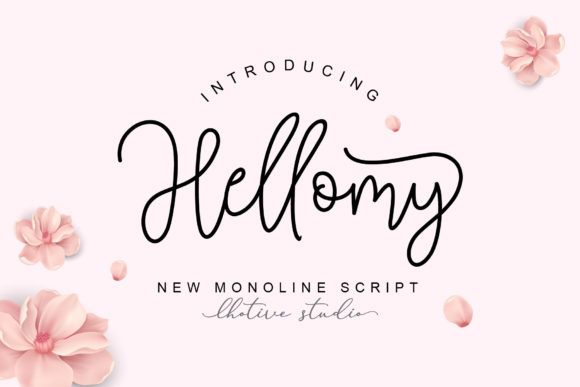
Journey into a world of elegant aesthetics with Hellomy Font, the exquisite script font designed to captivate your creative spirit. Created by the talented artist lhotive, this monoline masterpiece is a fusion of timeless beauty and modern flair. Hellomy Font beckons you to express your individuality with its meticulously crafted glyphs and a captivating collection of swashes that add a touch of enchantment to your designs.
Prepare to be mesmerized as you explore the depths of Hellomy's character set, where each letter dances across the screen with grace and poise. Its smooth curves and delicate strokes evoke a sense of sophistication, inviting you to craft designs that radiate elegance and charm. Unleash your creativity and let Hellomy Font guide you towards design excellence.
Immerse yourself in a world of endless possibilities with Hellomy Font. Its versatility knows no bounds, effortlessly adapting to a myriad of design projects. Whether you're crafting wedding invitations that exude romance, creating marketing materials that demand attention, or designing social media posts that captivate your audience, Hellomy Font is your steadfast companion. Its timeless appeal transcends trends, ensuring that your designs remain captivating and relevant for years to come.
With Hellomy Font as your creative ally, you'll discover a new level of expression and engagement. Its enchanting swashes add a touch of whimsy and intrigue, inviting your audience to delve deeper into your designs. Experiment with different combinations to create unique and captivating compositions that leave a lasting impression.
Step into the spotlight with Hellomy Font and watch your designs shine brighter than ever before. Its ability to transform ordinary text into captivating masterpieces is truly remarkable. Elevate your brand identity, capture the attention of your audience, and leave an enduring mark in the world of design. Join the ranks of creative visionaries who have chosen Hellomy Font as their weapon of choice, and experience the joy of creating designs that captivate and inspire.